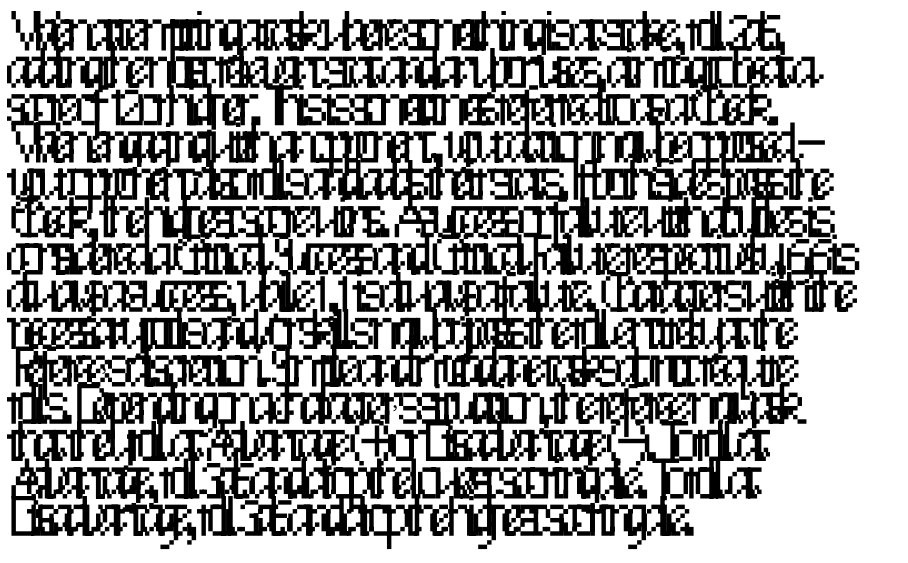
• This is the 10pt display 'raster' version of the "Cream" font as used on the Xerox Alto (particularly in Smalltalk76 and its predecessors; a variant of it may still be used in Smalltalk80). The vector version used on very early xerox printers and print servers is much higher resolution. This is the font that directly inspired the Apple "Venice" font, and also appeared as the System/UI font (instead of Chicago) on early Mac prototypes.
@metaljeyes - Not to speak for @Lord Nightmare, but I believe the reference to 'vector version' means 'displayed on original Xerox Alto hardware' and not an actual PC font file...
The vector version is embedded into the two xerox alto disk packs for the 'spruce' imager for Dover or Sequoia printers. Spruce is effectively a partially-software raster renderer (using an Orbit add-on set of cards for the Alto) for very early laser printers. Some later Xerox laser printers may have had the vector font data loaded directly onto the printer itself, so didn't need a dedicated network-linked alto to directly render it. The actual source files for these embedded fonts I'm not entirely sure where to find, but may exist on the "Indigo" xerox alto archives at the computer history museum, which is accessible online.
Here's an example of the vector font version of Cream, rasterized by spruce running on a networked xerox alto using the 'ContrAlto' emulator. This font was usually used by Smalltalk-76 or Smalltalk-80 programs on the Xerox Alto, and printouts of said programs.
The unusual shape of the s, S and B glyphs (and some others) appears to be intentional (as it is consistent between the raster and vector versions of the font), perhaps to make characters less ambiguous on printouts and on-screen on the Alto
So, I searched in the CHM's archive of Xerox Parc and found this list of Alto front in the Indigo folder: https://xeroxalto.computerhistory.org/Indigo/AltoFonts/.index.html
We can find the Cream font with two sizes 10 and 12. They are fonts according to the Section 3 on File Naming Convention of the document "Font Representation and Format" (http://www.bitsavers.org/pdf/xerox/alto/printing/Font_Representations_and_Formats_Mar77.pdf).
The .al font format is described (as a BCPL struct) in the very same pdf file you linked. I have a chunk of c code I wrote back in 2019 which will display the characters to screen from any .al file, although interestingly even xerox screwed up a few of the font headers and character widths, requiring some manual heuristics to make them display properly by the viewer. (these might rely on undefined behavior of the xerox alto microcode to display properly!)
I love this font, but it seems to break on exporting to PDF on anything other than Adobe's exporter. I've tested in Affinity Publisher, Typst, LibreOffice, GIMP and Scribus. In each case, kerning seems to be either broken or absent when exported to PDF. The issue doesn't present itself in the working document, only when exported.
@Ophiolith - After cloning this font, the problem appears to be that the font widths are not fixed, they are variable -- which can lead to glyphs "running into each other" like this, especially pixel fonts...